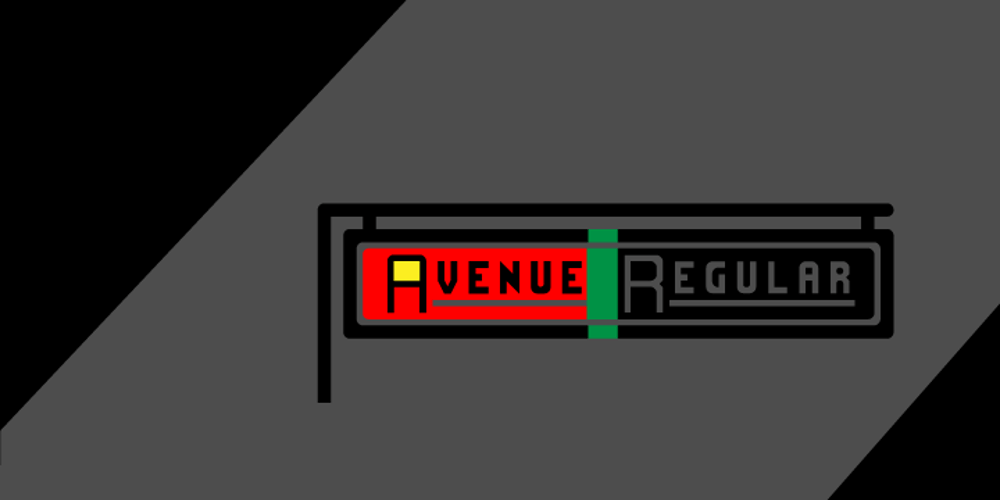
Avenue Font Family was designed by Wilson Thomas and published by Funk King. Avenue contains 1 styles and family package options. Avenue is a specialty font used to create imitation road signs. This is a very simple concept that can provide some versatile results. With an extensive character set, the possibilities for various signs are endless.